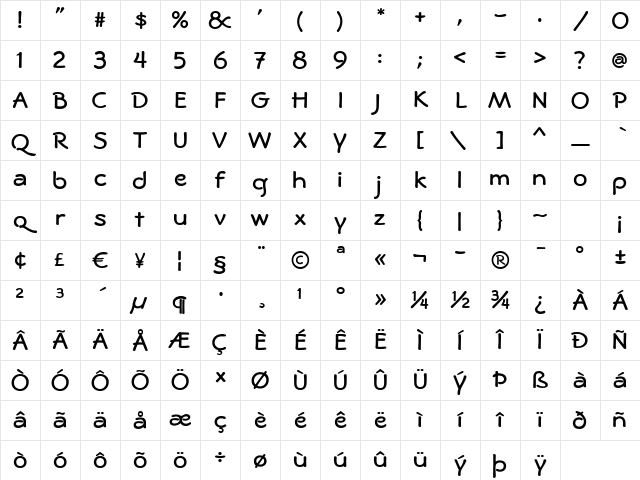
Gargoyle XBd is a composed and adaptable typeface that performs quietly and consistently across a wide range of design contexts. Its bold stroke weight gives it real presence on the page.